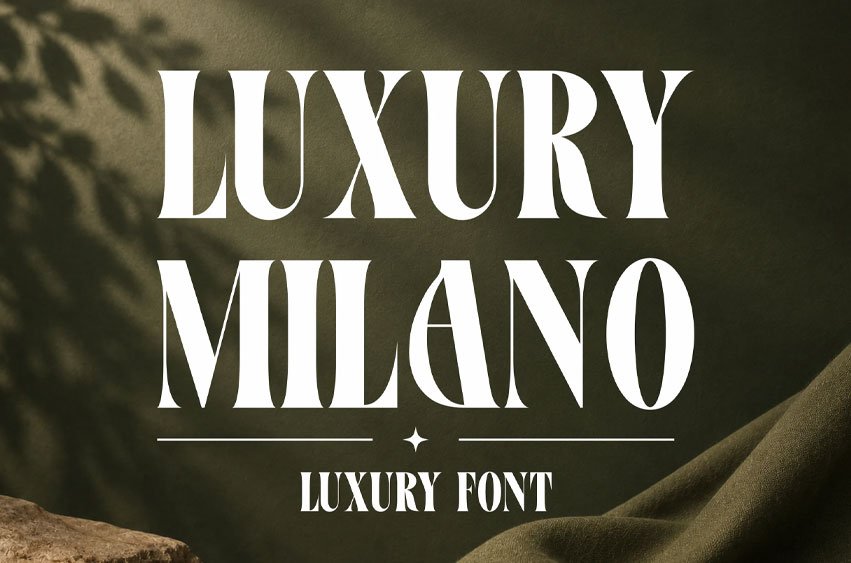
Luxury Milano Font is an elegant luxury font inspired by the sophistication, glamour, and timeless beauty of high-end fashion and premium branding. Designed with refined letterforms and graceful details, this font brings an exclusive and upscale aesthetic to every creative project.
Crafted to embody modern luxury, Luxury Milano features beautifully balanced proportions and stylish curves that create a polished and distinguished appearance. The elegant character shapes deliver a sense of prestige and sophistication while maintaining excellent readability, making it suitable for both display and branding applications.
Inspired by the world of luxury fashion, premium lifestyle brands, and contemporary editorial design, Luxury Milano adds a refined and fashionable atmosphere to any composition. Its timeless elegance allows it to adapt effortlessly across various creative styles, from minimalist modern layouts to classic luxury presentations.
Luxury Milano is perfect for a wide variety of premium projects, including logos, branding, fashion campaigns, packaging, editorial layouts, social media content, and advertising materials. Whether you’re creating a luxury brand identity, designing elegant invitations, or developing sophisticated marketing assets, this font provides a distinctive and memorable visual presence.
The font also performs beautifully in special occasion designs such as wedding stationery, beauty branding, jewelry packaging, cosmetic labels, and upscale event materials. Every character is carefully designed to help your projects communicate elegance, exclusivity, and style.
Luxury Elegant Style Sophisticated letterforms designed for premium and high-end projects.
Timeless & Fashionable A perfect blend of modern trends and classic elegance.
Stylish & Readable Elegant details combined with excellent legibility.
Premium Branding Ready Ideal for creating exclusive and memorable brand identities.
Multilingual Support Extended character set for international design applications.
If you’re looking for a font that embodies elegance, prestige, and modern sophistication, Luxury Milano is the perfect choice. Its refined letterforms and premium aesthetic help you create designs that feel exclusive, stylish, and unforgettable.